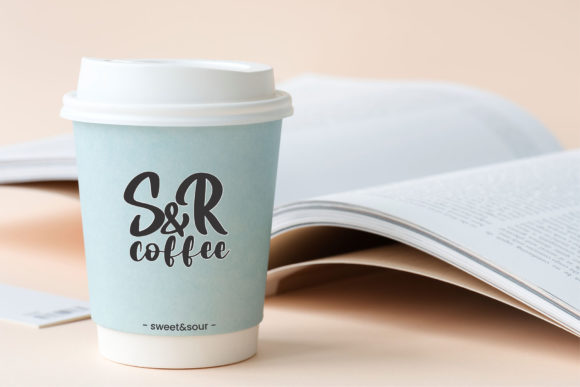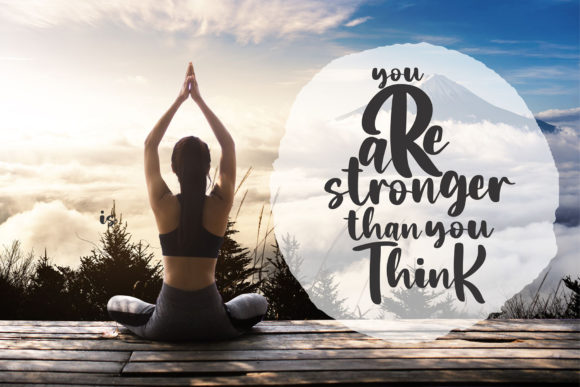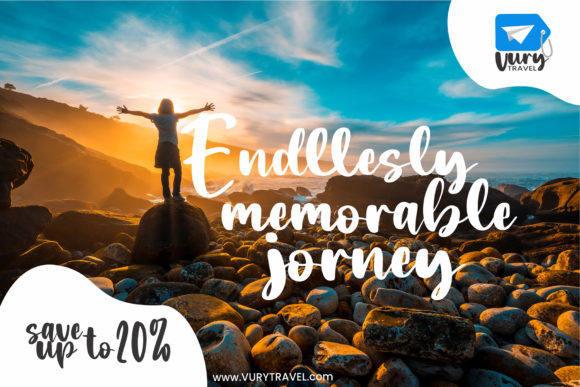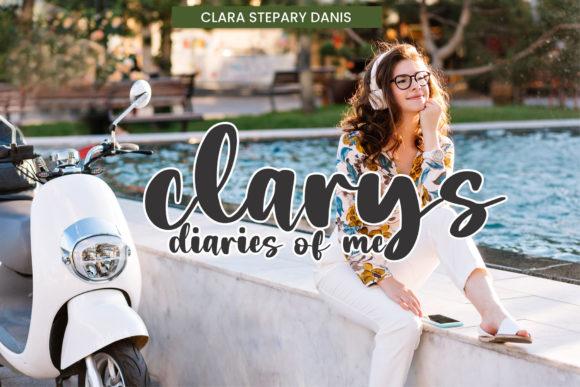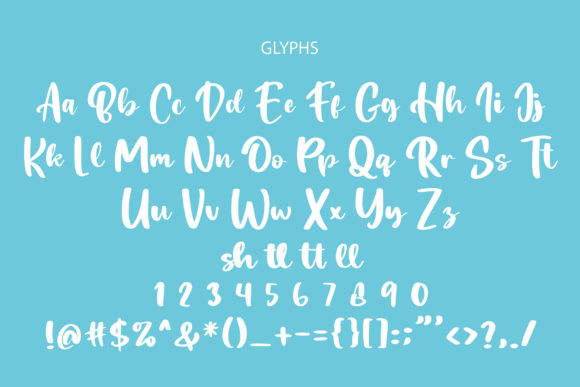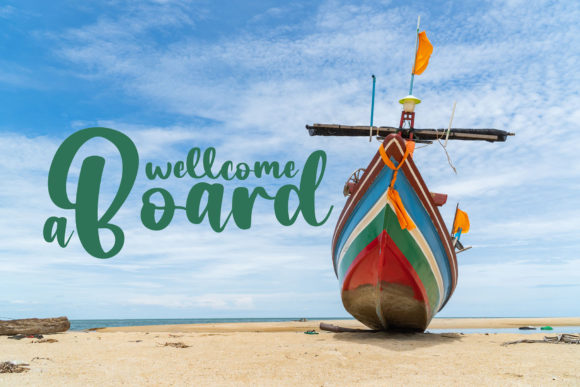
The Butter Milk Font: A Trendy Touch for Your Creations
I’ll never forget the time I was working on a project for a client who wanted a font that was both casual and trendy. I had spent hours browsing through font libraries, but nothing seemed to fit the bill. That’s when I stumbled upon the Butter Milk font. Its unique, brushed handwritten style immediately caught my eye, and I knew I had found the perfect fit. In this article, I’ll share my experience with the Butter Milk font, its features, and how to make the most of it in your designs.
A Personal Review of Butter Milk
- ✨ The casual, brushed handwritten style of Butter Milk adds a touch of warmth and personality to any design.
- ✅ The font has a nice flow, making it easy to read and perfect for body text.
- 💫 The trendy vibe of Butter Milk makes it ideal for designs that require a modern touch.
While Butter Milk is an excellent font, it’s not without its quirks. For instance:
- 🤔 The font may not be suitable for very formal or traditional designs, as it has a distinctly casual feel.
- ⚠️ Some characters, like the uppercase letters, can be a bit inconsistent in terms of stroke width.
- Experiment with OpenType features, like glyphs and stylistic alternates, to add more personality to your text.
The Story Behind Butter Milk
Butter Milk was designed by a talented type designer who wanted to create a font that was both casual and trendy. The designer drew inspiration from everyday handwritten notes and signs, aiming to capture the warmth and personality of handwritten text. The result is a font that’s perfect for designs that require a modern, approachable feel.
Q: What is the Butter Milk font best used for?
A: Butter Milk is ideal for designs that require a casual, trendy touch, such as social media graphics, blog posts, and branding materials.